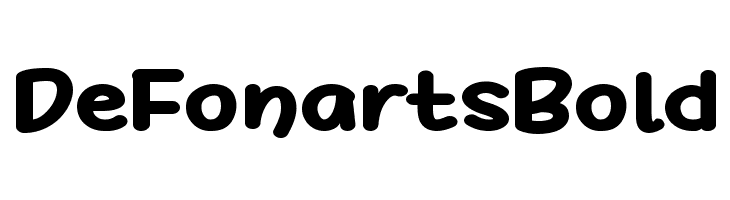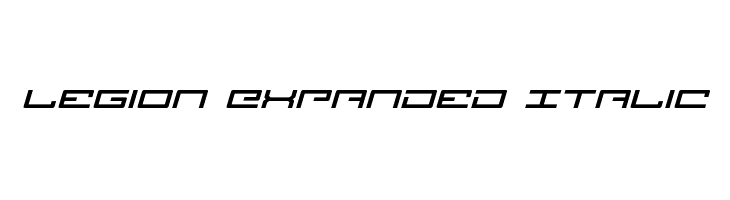
A bold, dynamic script font with fluid, connected strokes and a slight slant.
A bold, brush-stroke style font with a dynamic and artistic flair.
An elegant and flowing script font with intricate, decorative letterforms.
A tall, narrow, and modern font with clean lines and uniform spacing.
A bold, geometric outline font with an italic slant and modern appeal.
A bold, playful font with a cartoon-like, blocky design.
A modern, geometric font with a sleek and futuristic design.
A bold, angular font with a gothic influence and leftward slant.
A bold, geometric font with a futuristic and modern design.
A bold, geometric font with a strong, uniform appearance.
设计师偏爱 Kenthir, Osake , Sigoda, Mobstex - Free For Personal Use and Super Submarine Outline Italic,因为其造型干净、适用范围广—— 从品牌识别到落地页、海报都能胜任。